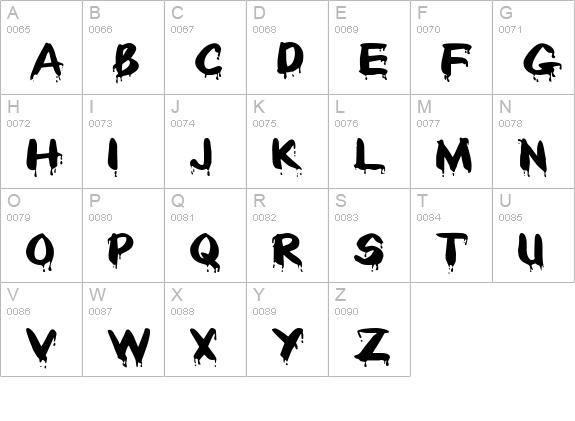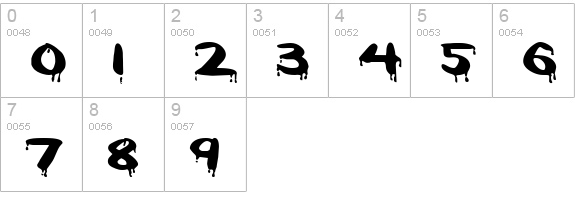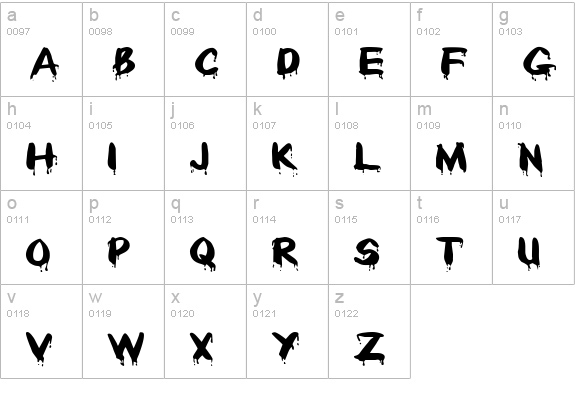
Introducing Paintdrips font, a creative and expressive typeface that will bring your designs to life! This unique font is perfect for adding a touch of artistic flair to any project. With its fluid and dynamic letterforms, Paintdrips font captures the essence of paint dripping and splattering, giving your text a vibrant and energetic look. Each character in Paintdrips font is meticulously crafted to resemble the organic shapes and textures created by actual paint drips. The irregular lines and bold strokes create a visually captivating effect, making this font a standout choice for headlines, logos, posters, and more. Not only does Paintdrips font offer eye-catching aesthetics, but it is also incredibly versatile. It pairs well with both serif and sans-serif fonts, allowing you to seamlessly integrate it into your existing design schemes. Whether you want to create a bold and adventurous design or add a playful touch to your artwork, Paintdrips font is the perfect choice. And the best part? Paintdrips font is completely free! You can download this incredible font at FontsMarket.com, where it is available for instant download. Don't miss out on the opportunity to add this one-of-a-kind font to your collection without spending a penny. So, why wait? Unleash your creativity and let Paintdrips font transform your designs into works of art. Download it now and get ready to make a lasting impression with this captivating and freely available font.